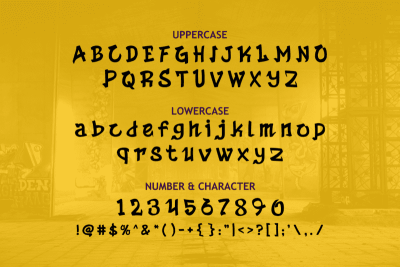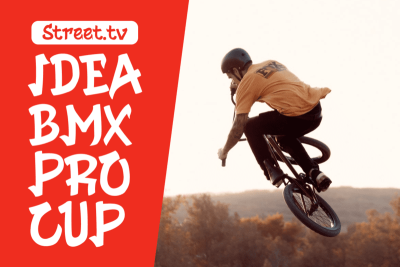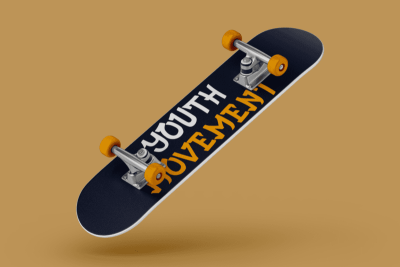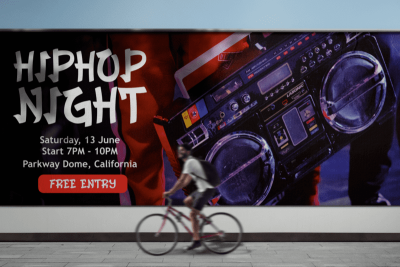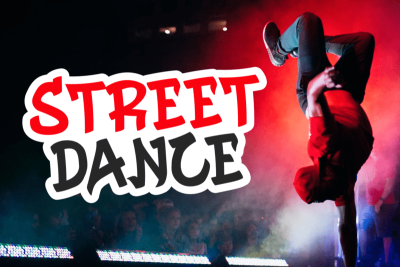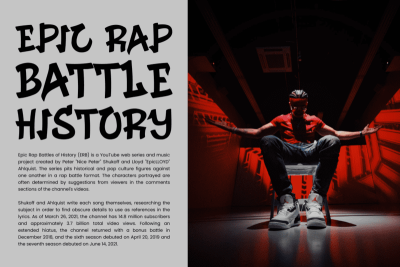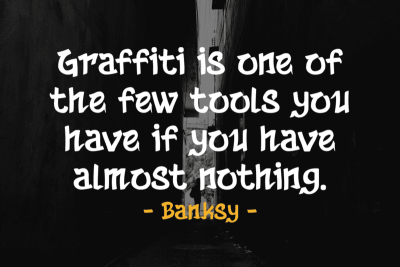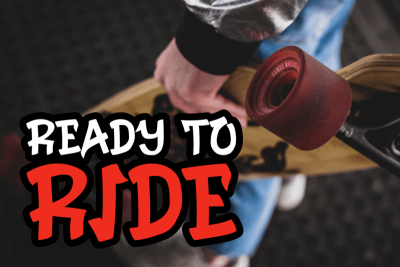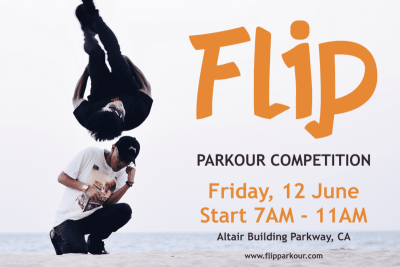
Graffiti Font Tough Art is a rugged, expressive typeface that captures the raw spirit of street art and urban culture. With bold, rough-edged letterforms and dynamic strokes, Tough Art brings graffitiโs essence to life. Each character has a gritty, handcrafted feel, making it perfect for projects that need a rebellious edge. Its uneven, jagged lines add movement and energy, giving any text a bold presence. This graffiti-inspired font is visually striking and versatile, adapting to various themes while maintaining its tough, urban appeal.
Tough Art is designed to stand out. Itโs ideal for display use, especially on posters, merchandise, album covers, or digital graphics. Its heavy, unapologetic style grabs attention, working well on both light and dark backgrounds. This font combines the raw authenticity of street art with functional design elements. Its rough, unpolished look adds character, making it perfect for designs that break free from convention.
Graffiti Font Tough Art Best Suited For
Tough Art is ideal for designers and brands looking to make a powerful statement. Graphic designers, social media marketers, and content creators can use it to engage younger, trend-focused audiences. The fontโs edgy style works well on posters, branding materials, and merchandise, especially for music events, streetwear brands, or alternative products. Itโs also great for album covers and digital art that need a bold, impactful typeface.
Content creators on Instagram, TikTok, or YouTube will find Tough Art valuable for eye-catching thumbnails, banners, or intros that pop off the screen. Event organizers and music festivals targeting energetic audiences can use this font for promotional materials full of excitement and personality. Streetwear and alternative fashion brands will also benefit from Tough Artโs rugged, rebellious vibe, aligning with bold, unique aesthetics. In summary, Graffiti Font Tough Art is for anyone wanting to make a memorable impact, adding a raw, dynamic edge to designs that demand attention.